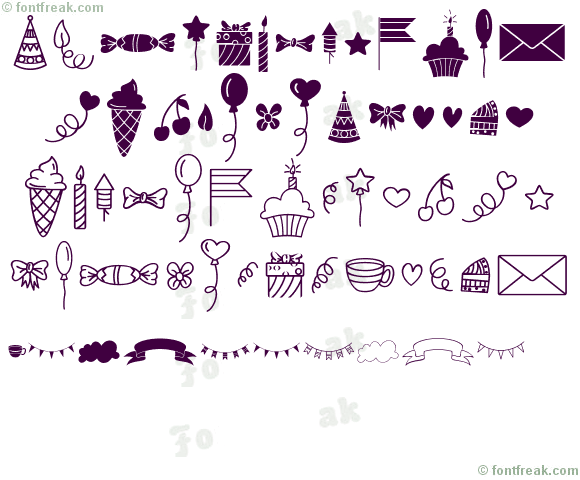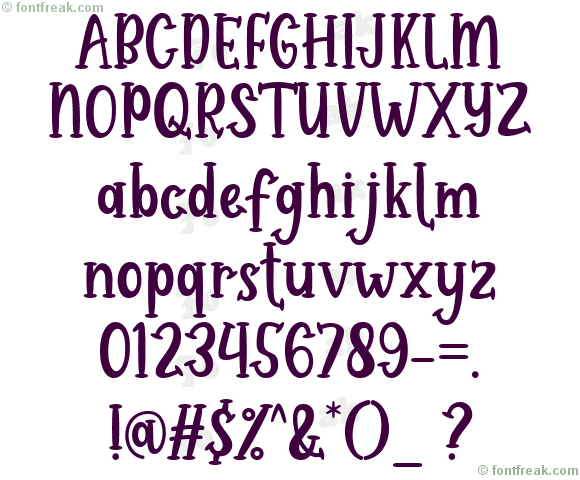
Habede Italic
Habede Extra Doodles
About Habede Italic
The Habede Italic font, designed by Situjuh Nazara and released in 2018 under a freeware license, is a distinctive display typeface that merges playful elegance with a unique artistic flair. This font falls into the decorative category, making it a perfect choice for projects that require a touch of creativity and personality. The visual characteristics of Habede Italic feature a medium stroke weight with moderate contrast, which contributes to its legibility while maintaining a whimsical aesthetic. The letterforms have a slightly slanted angle, enhancing the italicized effect, while the rounded edges and doodle-like embellishments add a fun, informal charm.
Habede Italic is ideal for a variety of creative applications, including wedding invitations where a sense of romance is desired, vibrant movie posters that aim to catch the eye, and engaging restaurant menus that invite patrons to explore culinary offerings. Additionally, this font works beautifully for branding purposes, especially for small businesses seeking to convey a friendly and approachable image. It appeals to graphic designers looking to incorporate playful elements into their work, content creators wanting to add a unique touch to their visuals, and small business owners aiming to establish a memorable brand identity.
What sets the Habede Italic font apart is its ability to balance creativity with practicality. Its unique design elements make it stand out without overwhelming the viewer, making it versatile for both formal and casual contexts. The Habede Italic font free download allows users to experiment with this engaging typeface in their own projects, ensuring that creativity knows no bounds. Embrace the charm and expressiveness of Habede Italic to elevate your designs and captivate your audience.